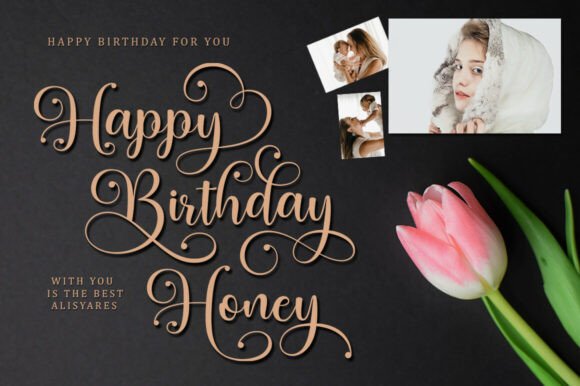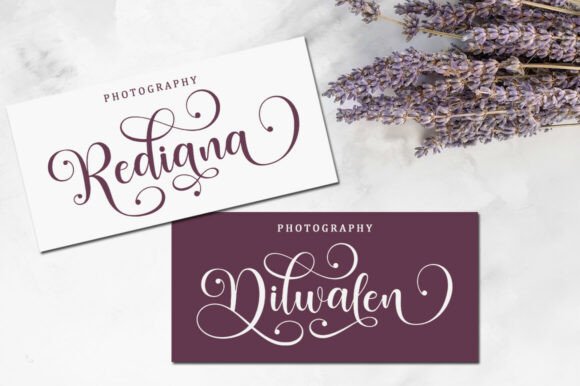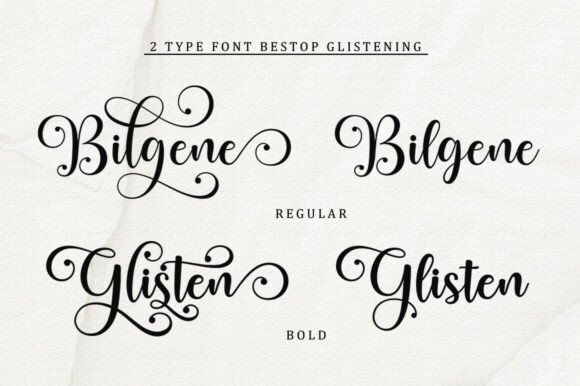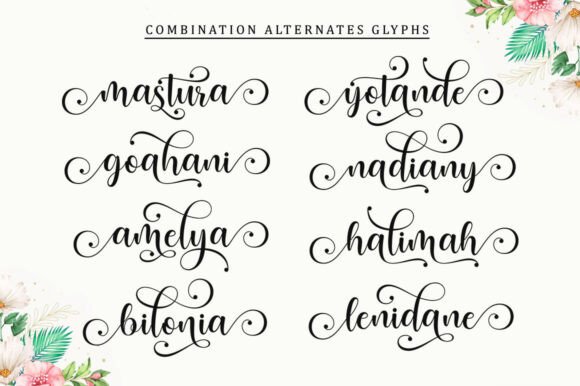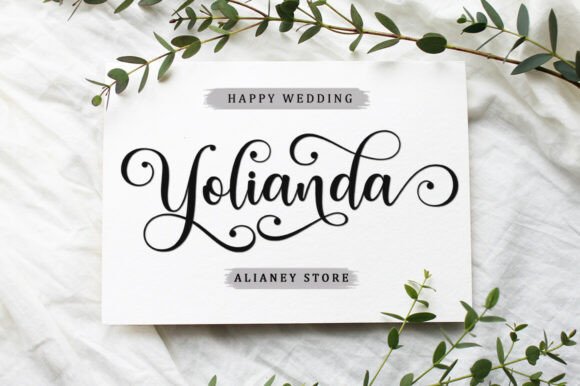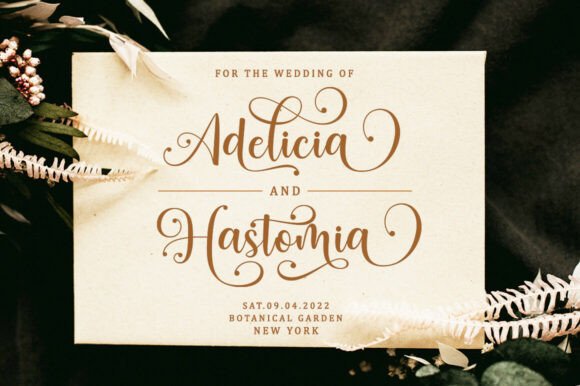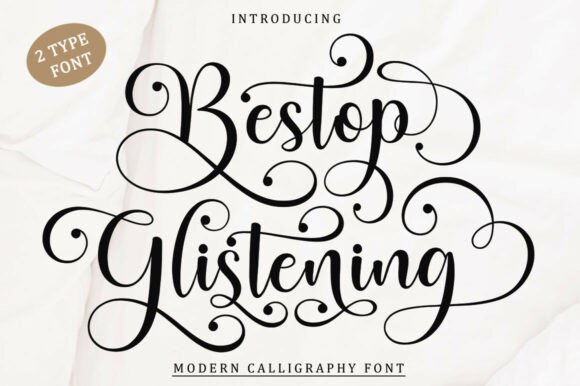
Elevate Your Typography with Bestop Glistening: A Modern Calligraphy Font
In the world of typography, a good font can make all the difference in elevating your design to the next level. For those seeking a modern calligraphy font that embodies lyrical beauty and fluid grace, look no further than Bestop Glistening. This stunning “2 Type Font” pack is designed to add a touch of sophistication and elegance to any project, making it the premier choice for luxury wedding invitations, sophisticated branding, artisanal wine labels, and high-end editorial headers.
The Art of Bestop Glistening
Bestop Glistening is more than just a font – it’s an artistic experience. With an extensive collection of dramatic, sweeping swashes and intricate loops, this font mimics the artistic flair of hand-penned ink. The result is a rhythmic masterpiece of loops and curves that will leave your text looking anything but ordinary. Whether you’re a designer, craftsperson, or simply someone who appreciates the beauty of typography, Bestop Glistening is sure to inspire.
Key Features of Bestop Glistening
- Modern Calligraphy Style: Bestop Glistening boasts a modern calligraphy style that is both elegant and sophisticated.
- Extensive Swash Collection: With a wide range of dramatic, sweeping swashes and intricate loops, you’ll have everything you need to create stunning text.
- 2 Type Font Pack: This font pack includes two unique font styles, giving you flexibility and variety in your designs.
- Lyrical Beauty and Fluid Grace: Bestop Glistening’s fluid, cursive lines evoke a sense of movement and elegance.
Perfect for Luxury Projects
Bestop Glistening is the perfect choice for luxury projects that require a touch of sophistication and elegance. Some ideal uses for this font include:
- Luxury Wedding Invitations: Add a touch of glamour and romance to your wedding invitations with Bestop Glistening.
- Sophisticated Branding: Elevate your brand with a font that exudes elegance and refinement.
- Artisanal Wine Labels: Give your wine labels a touch of class and sophistication with Bestop Glistening.
- High-End Editorial Headers: Make a statement with stunning headers that showcase your content in style.
Why Choose Bestop Glistening?
With so many fonts on the market, why choose Bestop Glistening? Here are just a few reasons why this font stands out:
- Unique and Versatile: Bestop Glistening offers a unique blend of style and versatility, making it perfect for a wide range of projects.
- Elegant and Sophisticated: This font exudes elegance and sophistication, making it perfect for luxury projects.
Tips for Using Bestop Glistening
To get the most out of Bestop Glistening, here are a few tips to keep in mind:
- Experiment with Swashes: Don’t be afraid to experiment with the font’s extensive swash collection to find the perfect look for your project.
- Mix and Match: Try pairing Bestop Glistening with other fonts to create a unique and eye-catching design.
- Pay Attention to Kerning: To ensure your text looks its best, be sure to pay attention to kerning and adjust as needed.
In conclusion, Bestop Glistening is a modern calligraphy font that is sure to elevate your typography to the next level. With its extensive collection of dramatic swashes and intricate loops, this font is perfect for luxury projects that require a touch of sophistication and elegance. Whether you’re a designer, craftsperson, or simply someone who appreciates the beauty of typography, Bestop Glistening is a must-have font that will inspire and delight.